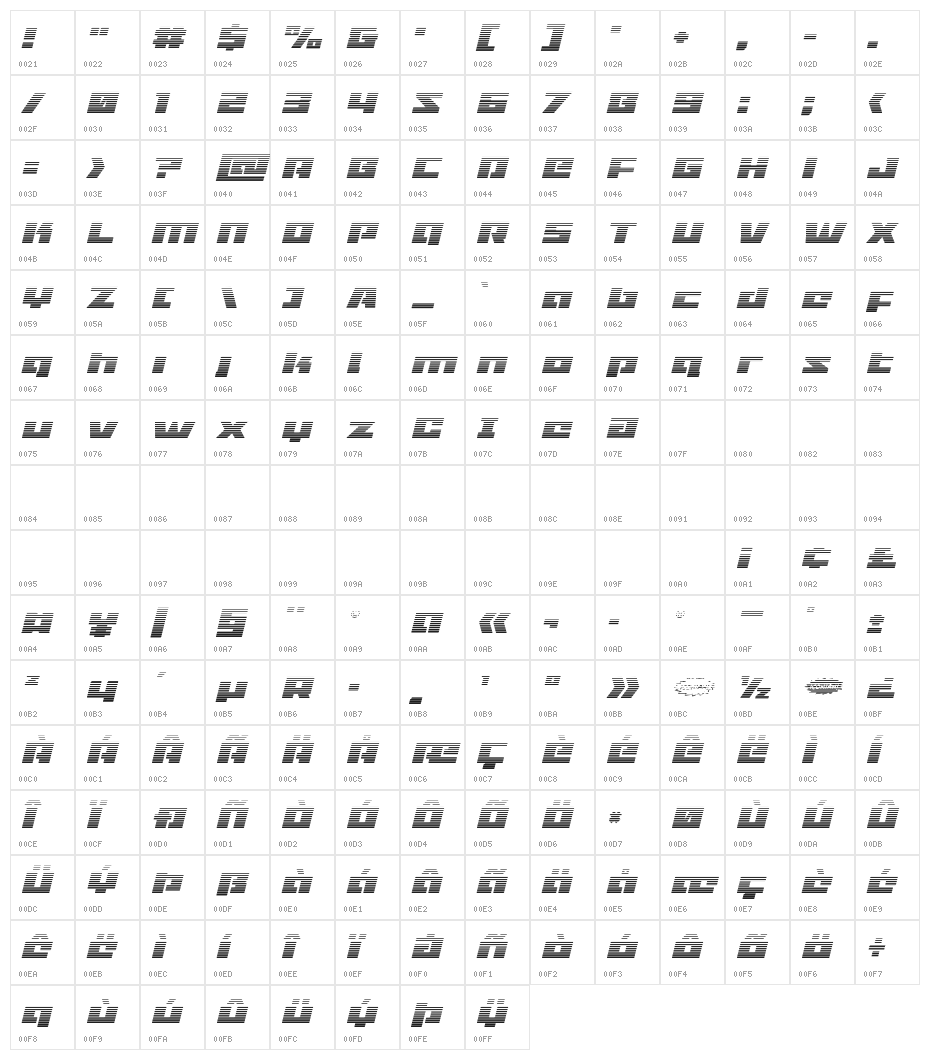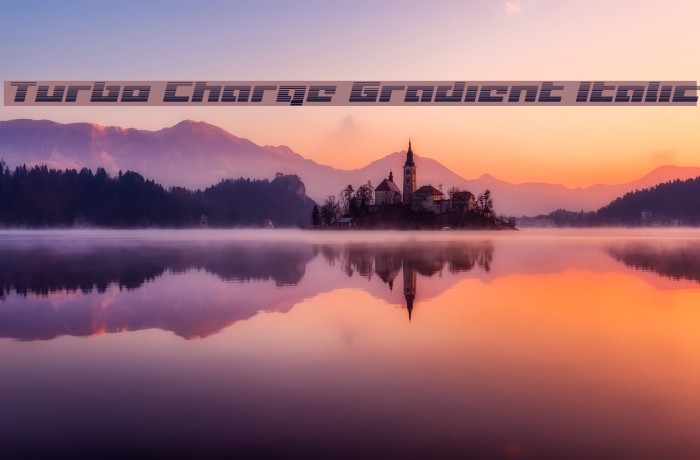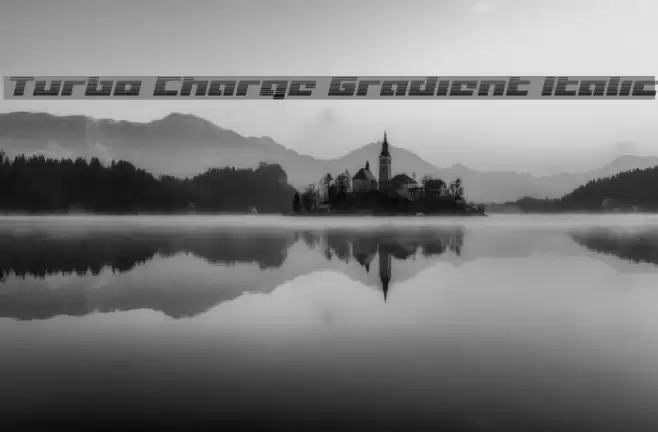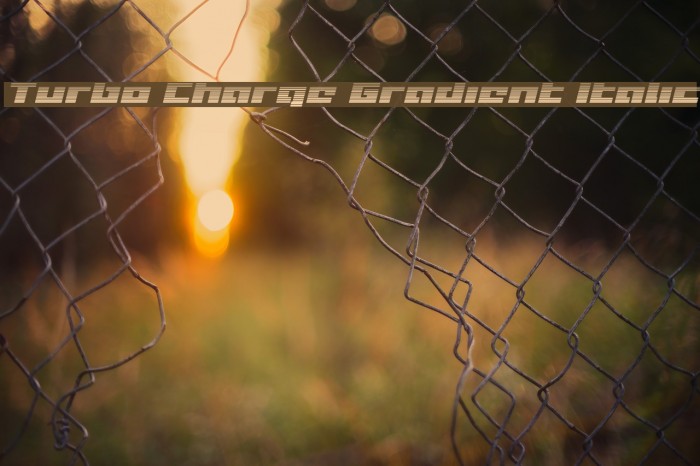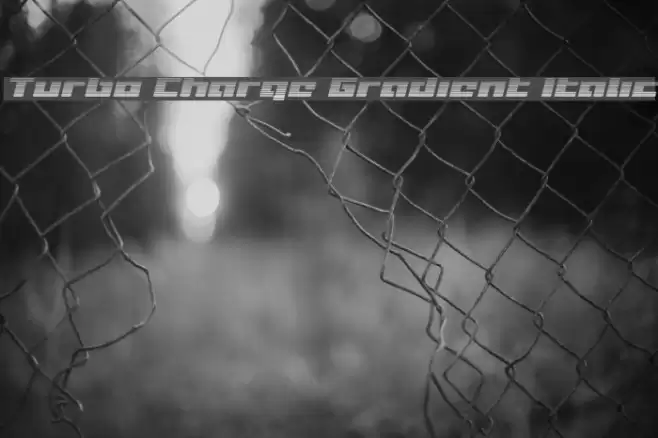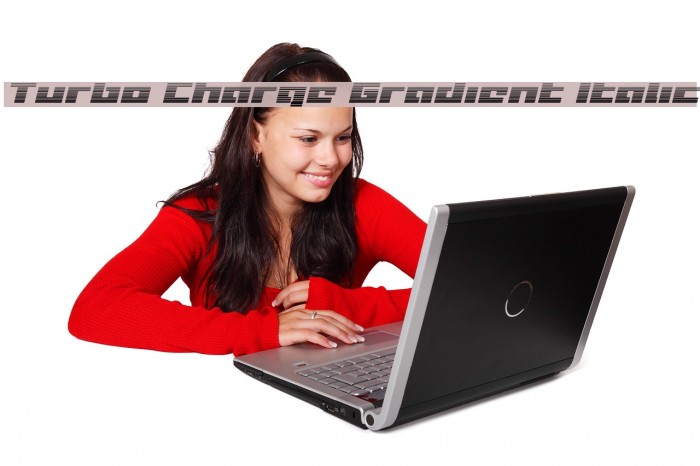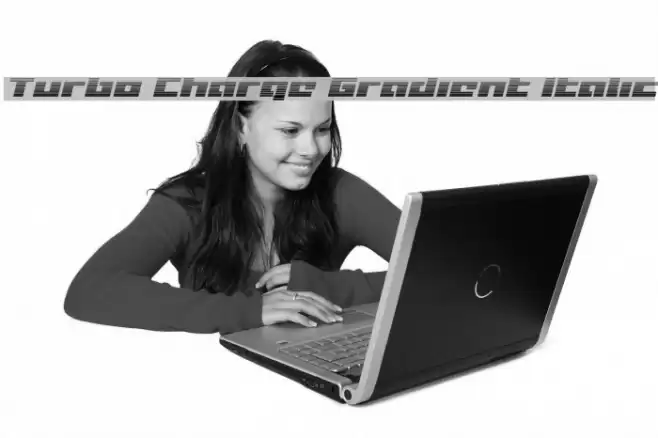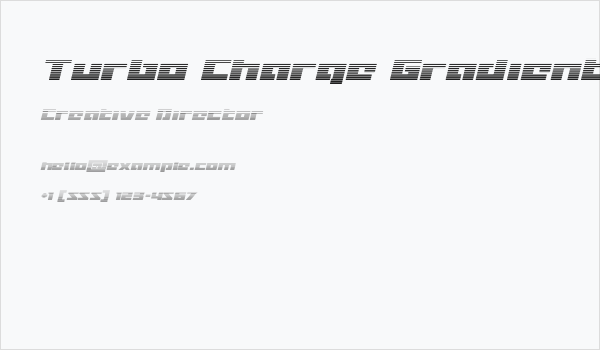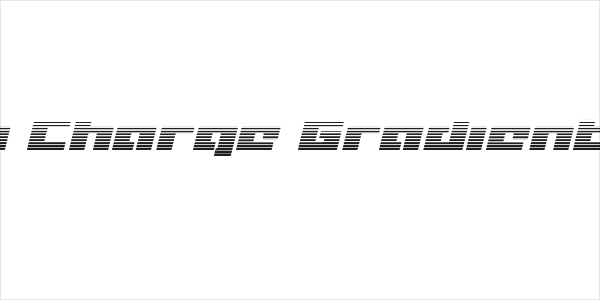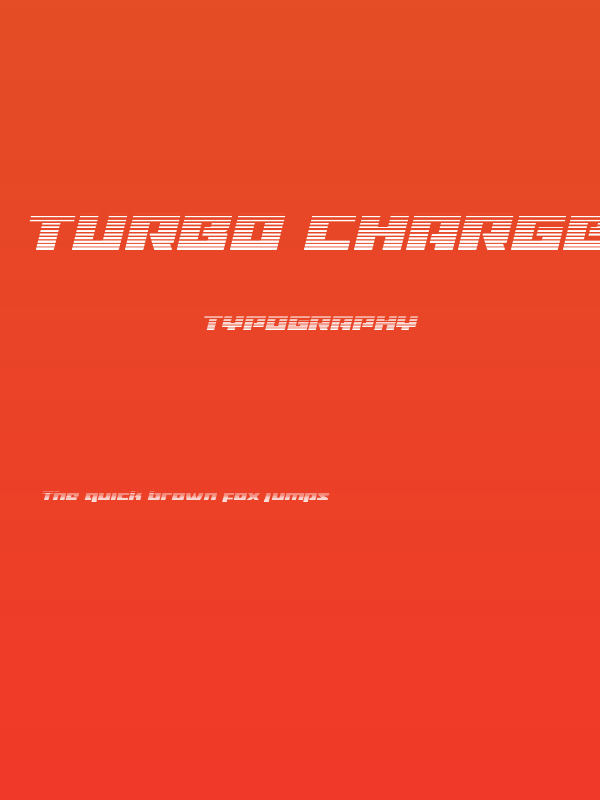
Turbo Charge Gradient Italic Font
Turbo Charge Gradient Italic Description
This font features a dynamic, futuristic design with a strong emphasis on speed and movement. The characters are composed of horizontal lines that create a gradient effect, giving the impression of motion. The italic slant further enhances this sense of speed, making it ideal for projects that require a modern and energetic look. The uppercase and lowercase letters maintain a consistent style, with sharp angles and a streamlined appearance. Numbers and special characters are equally bold and distinctive, ensuring a cohesive look across all text elements.
| Proposed Projects | Ideal for automotive branding, sports event posters, tech product packaging, and dynamic website headers. |